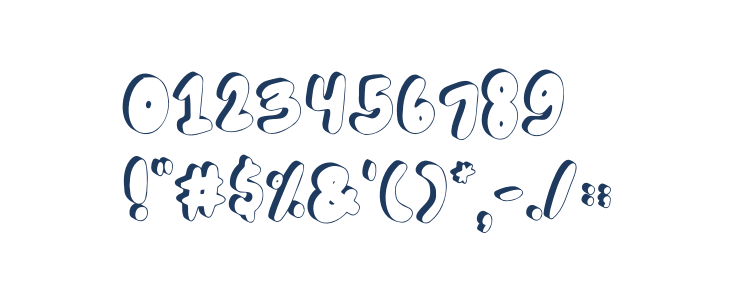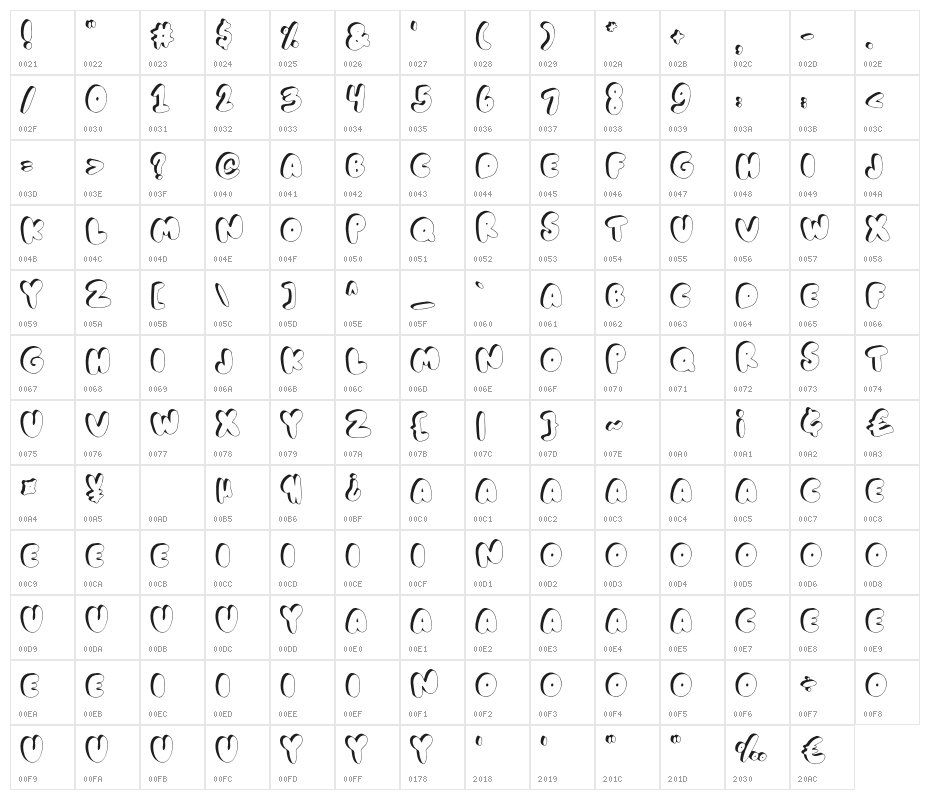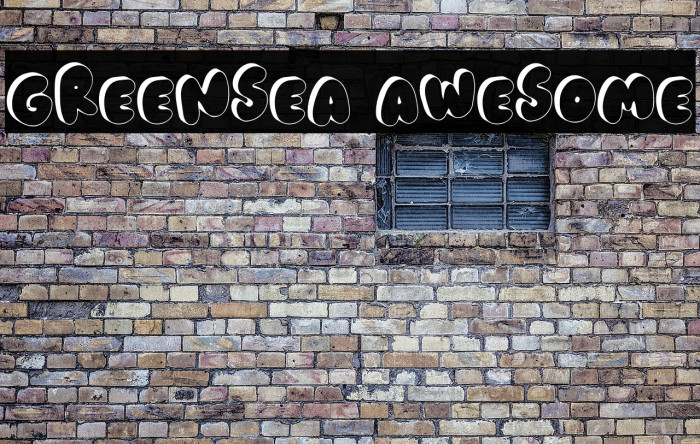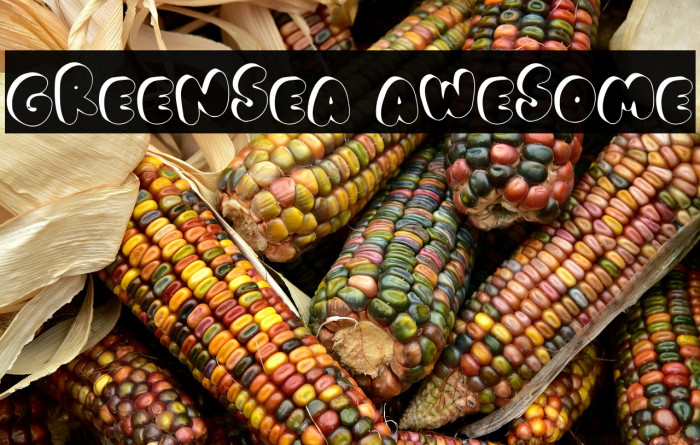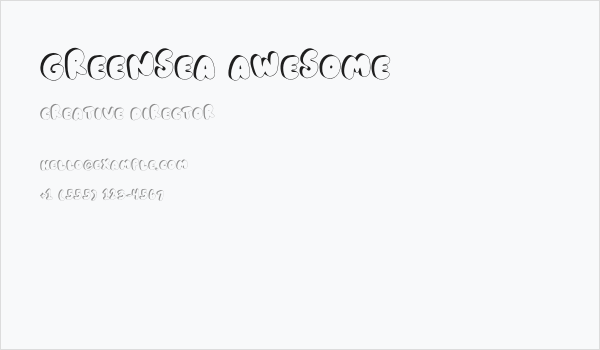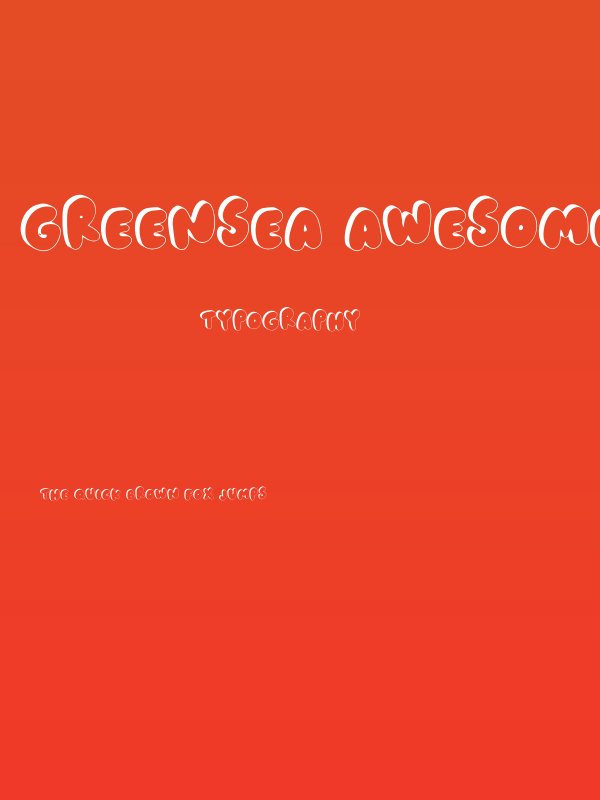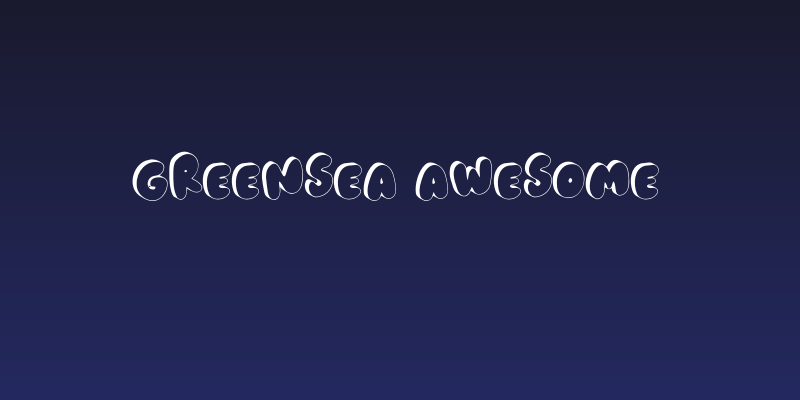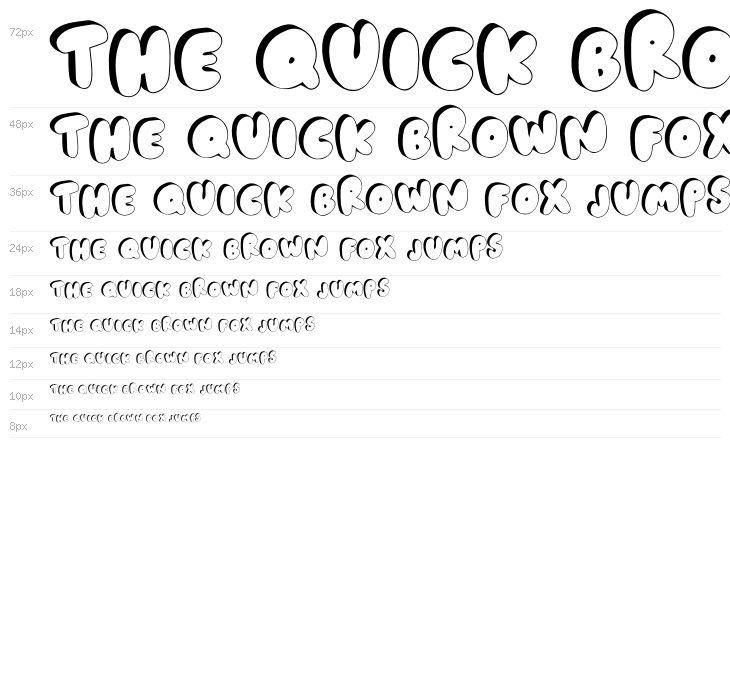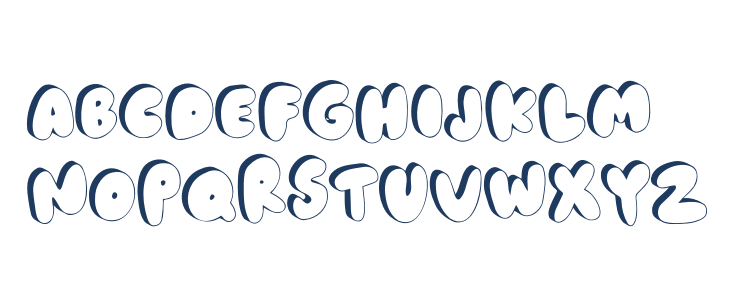
GREENSEA Awesome Font
GREENSEA Awesome Description
This playful and bold font features a bubbly, cartoonish style with thick, rounded edges and a three-dimensional shadow effect. The letters are uppercase and lowercase, with numbers and a variety of special characters. The design is reminiscent of comic book lettering, making it ideal for projects that require a fun and informal touch. The exaggerated curves and bold outlines give it a distinctive and eye-catching appearance, perfect for grabbing attention. The font's unique style is both whimsical and approachable, making it suitable for a wide range of creative applications.
| Proposed Projects | Ideal for children's books, comic strips, playful branding, and party invitations. |